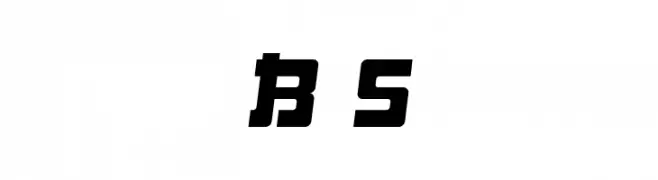
A dynamic and flowing script font with elegant, fluid strokes.
A bold, cursive font with elegant, interconnected characters and high contrast.
A bold, energetic brush-style font with a hand-drawn appearance.
A bold, graffiti-inspired font with dynamic and angular letterforms.
An elegant, cursive script font with ornate, flowing strokes.
A dynamic handwritten font with fluid, expressive strokes.
A dynamic, expressive handwritten font with fluid strokes and a playful style.
A playful, casual handwritten font with smooth, flowing strokes and rounded edges.
A bold, handwritten-style font with a playful and dynamic character.
A playful, hand-drawn style font with rounded edges and varying stroke widths.
A bold, brush-stroke font with a dynamic and artistic style.
A bold, hand-drawn font with an expressive and dynamic style.
A bold, geometric font with a strong, industrial feel.
A bold, geometric font with a modern, industrial style.
A bold, geometric font with strong, angular lines and a modern aesthetic.
A dynamic and fluid script font with elegant, flowing letterforms.
A geometric and classic font with clean lines and rounded edges, offering a modern yet traditional look.
A bold, modern serif font with clean lines and subtle curves.
A modern font with a gradient line effect, offering a dynamic and geometric style.
A modern, thin-stroked font with geometric shapes and elegant design.
A playful, whimsical script font with flowing, interconnected letters.
A playful, handwritten script font with fluid, interconnected strokes.
A whimsical and flowing script font with elegant, fluid letterforms.
A bold, playful script font with flowing, interconnected characters.
A playful, whimsical script font with a hand-drawn appearance.
A bold, playful font with a 3D shadow effect and rounded edges.
A bold, playful, and three-dimensional font with a comic-style flair.
A playful, handwritten font with smooth, rounded edges and consistent stroke width.
A bold, energetic script font with fluid, cursive strokes.
A playful, handwritten script font with bold, fluid strokes.
A bold, cursive font with a handwritten, elegant style.
A playful, cursive font with dynamic strokes and elegant connections.
A playful, bold, and handwritten-style font with a quirky charm.
A bold, fluid script font with a lively, handwritten style.
A lively, cursive font with elegant, flowing strokes.